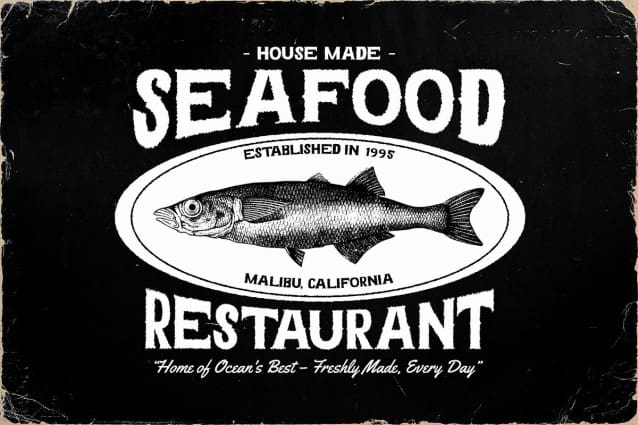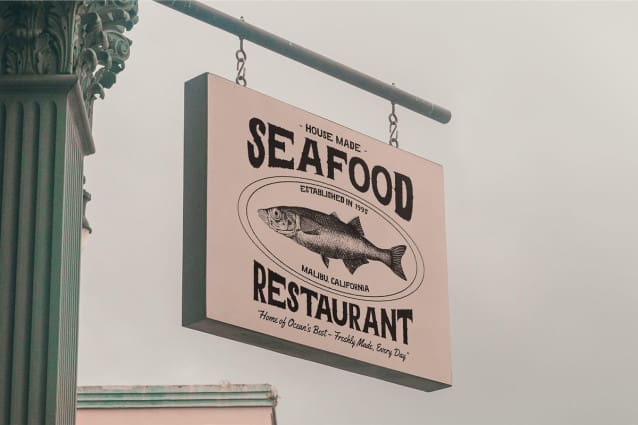
Rondey Rough Font
Rondey Rough Font is a bold serif font that brings together old-school charm and a rugged, textured finish. With thick, prominent letterforms, this font evokes a sense of strong, vintage authority, making it ideal for designs that aim to capture a timeless, classic aesthetic. Its sturdy serif shapes exude confidence and tradition, harkening back to hand-drawn typography from the past.
Rugged Texture for an Authentic, Worn Look The rough texture adds an imperfect, weathered touch to Rondey Rough, giving it a tough and character-filled appearance. This worn-in look provides a sense of authenticity, as if the font has been naturally aged over time. The combination of bold serifs and a textured, imperfect surface creates a distinctive visual that enhances the font’s old-school, handcrafted feel.
Ideal for Retro, Nostalgic Designs Rondey Rough’s strong vintage appeal makes it perfect for projects aiming to evoke nostalgia and originality. Whether used in retro posters, logos, or branding materials, this font adds a sense of age and durability, emphasizing a bold, standout old-school aesthetic. It’s ideal for designs that need to project strength, history, and a sense of character.